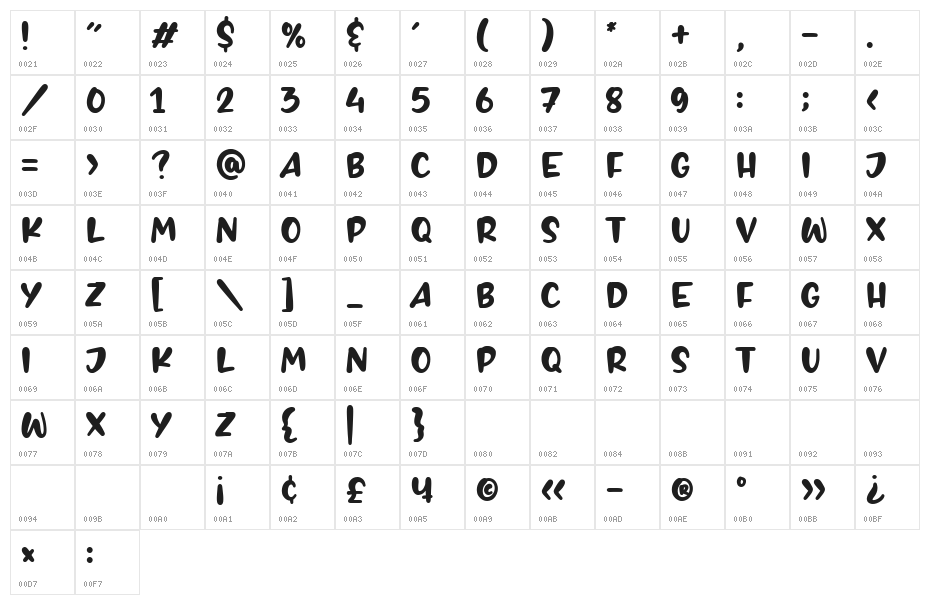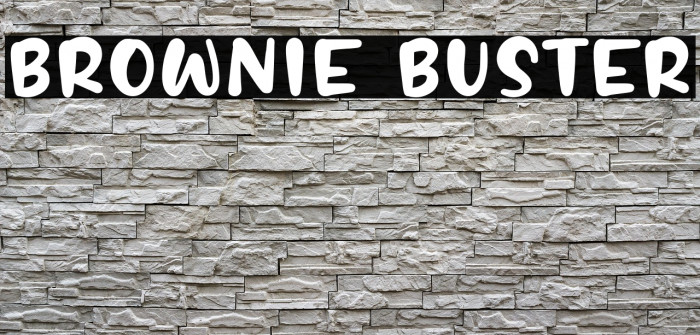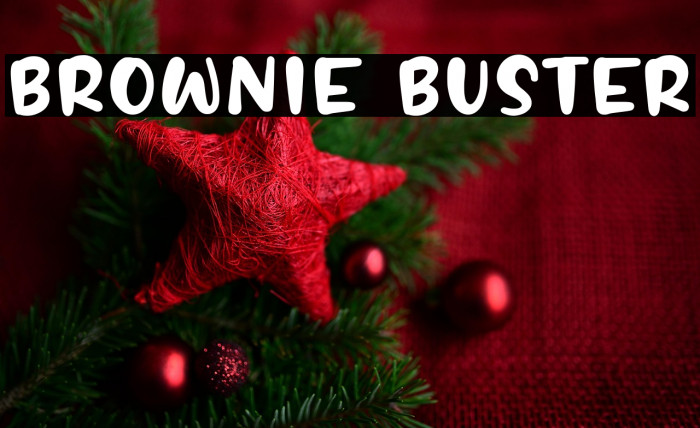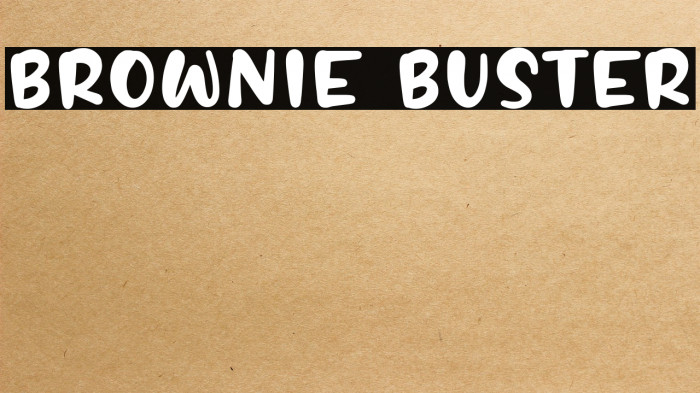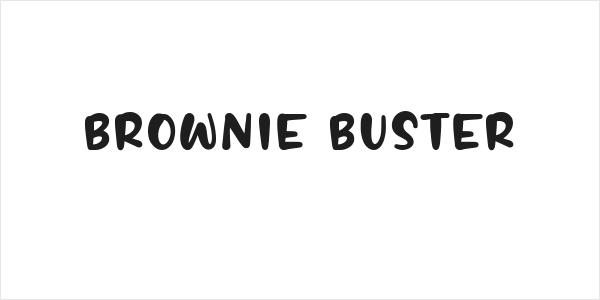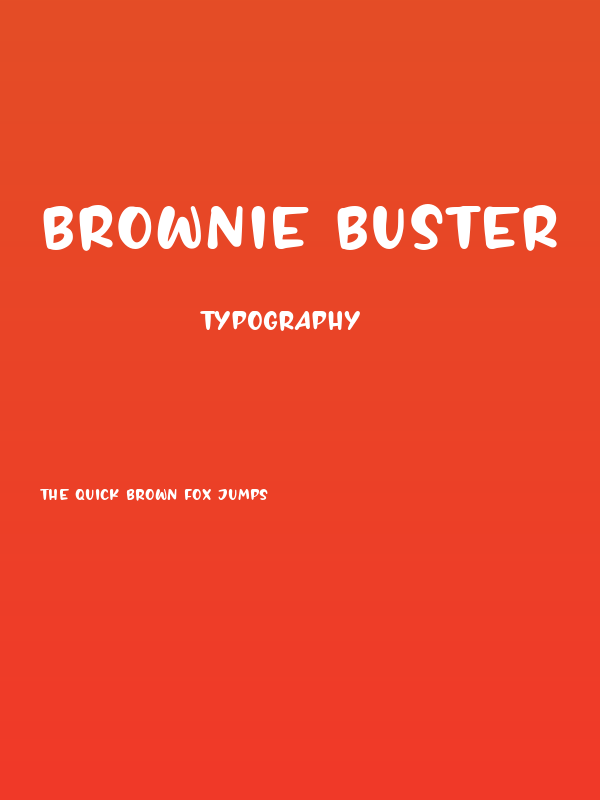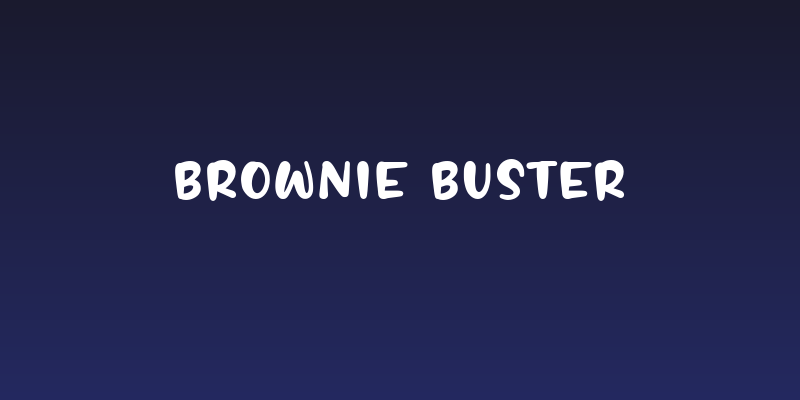
BROWNIE BUSTER Font
BROWNIE BUSTER Description
This font features a playful and bold handwritten style, characterized by its rounded and slightly irregular letterforms. The strokes are thick and consistent, giving it a strong presence. The letters have a casual, friendly appearance, making it suitable for informal and creative projects. The numerals and special characters maintain the same playful aesthetic, ensuring a cohesive look across all text elements. Its unique style is both eye-catching and approachable, ideal for designs that require a personal touch.
| Proposed Projects | Ideal for children's books, playful branding, greeting cards, and creative posters. |